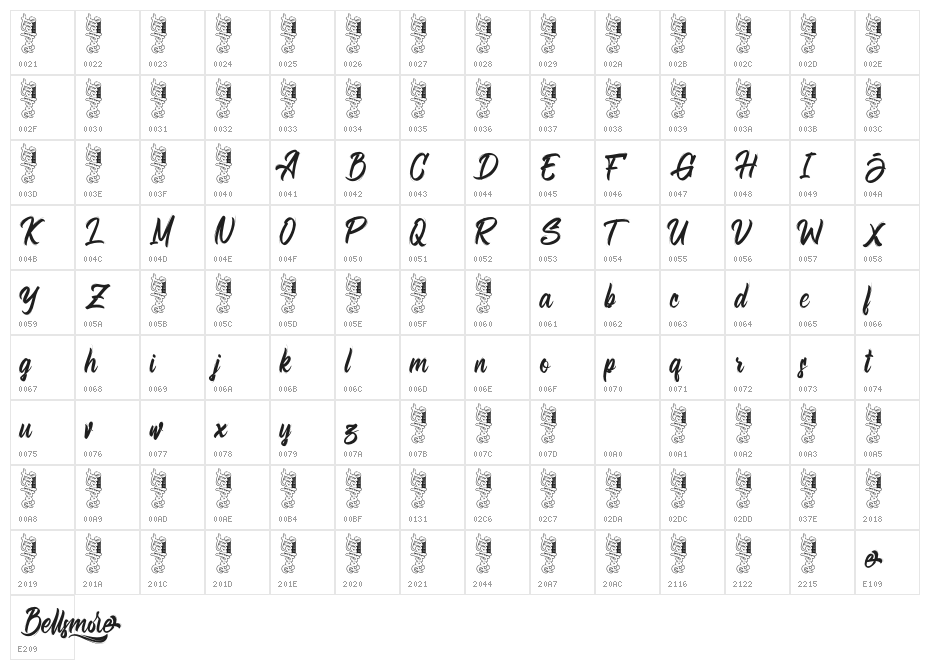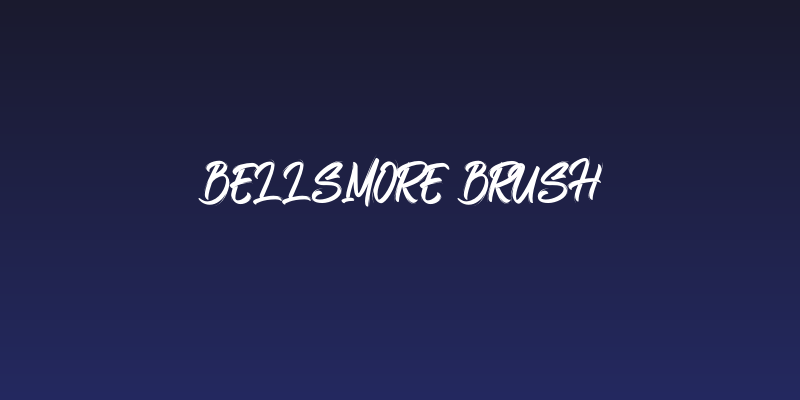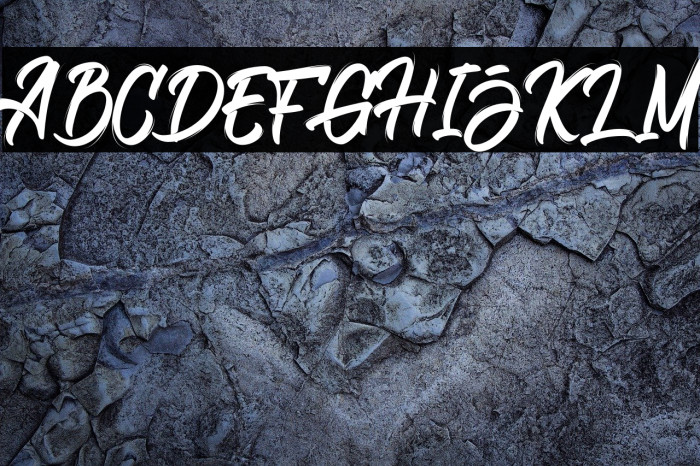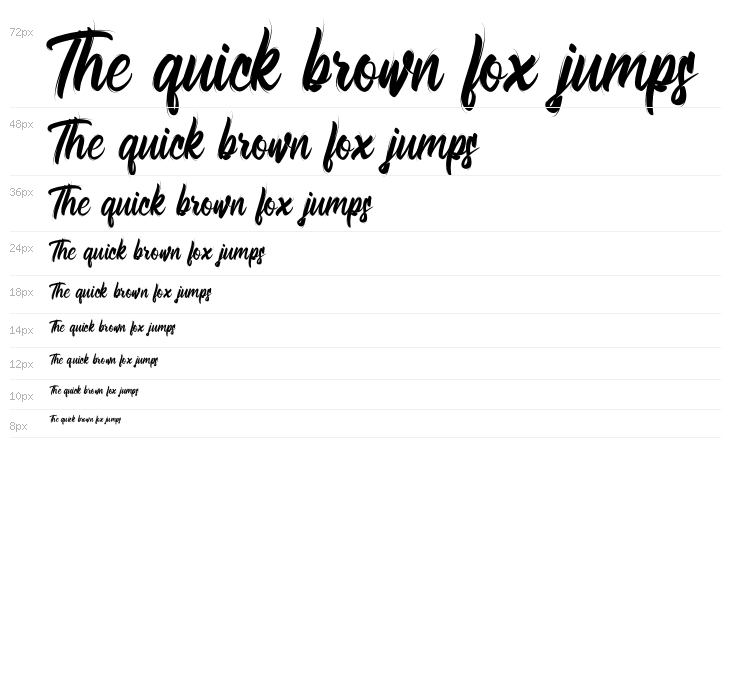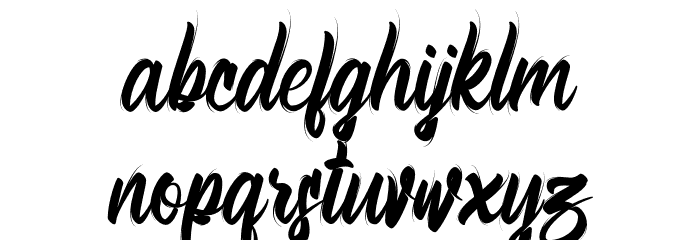
Bellsmore Brush Font
Bellsmore Brush Description
This font exhibits a dynamic and energetic brush style, characterized by its fluid and expressive strokes. The uppercase letters are bold and sweeping, with a sense of movement that suggests a handwritten quality. The lowercase letters maintain this fluidity, offering a cohesive and artistic appearance. The overall design is both modern and playful, making it suitable for creative projects. The characters are well-spaced, allowing for readability while maintaining the artistic flair. The font's unique style is emphasized by its high contrast in stroke thickness, which adds to its visual impact.